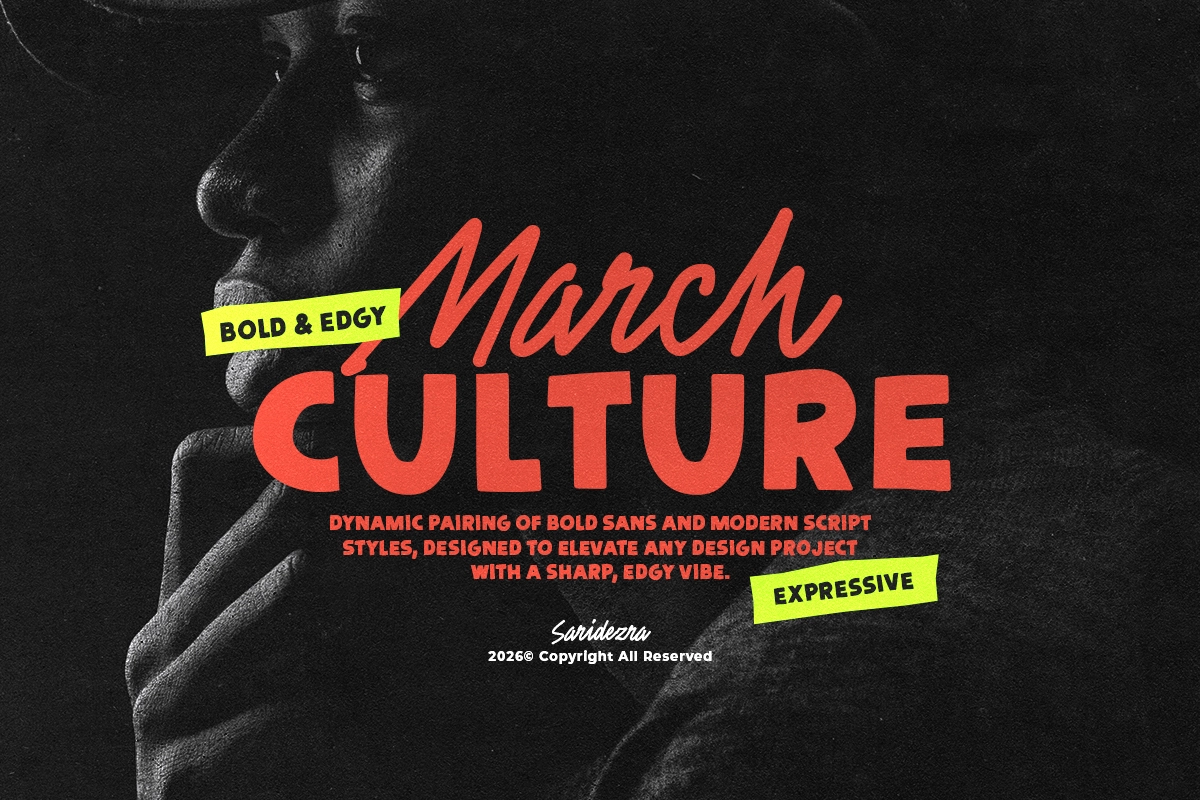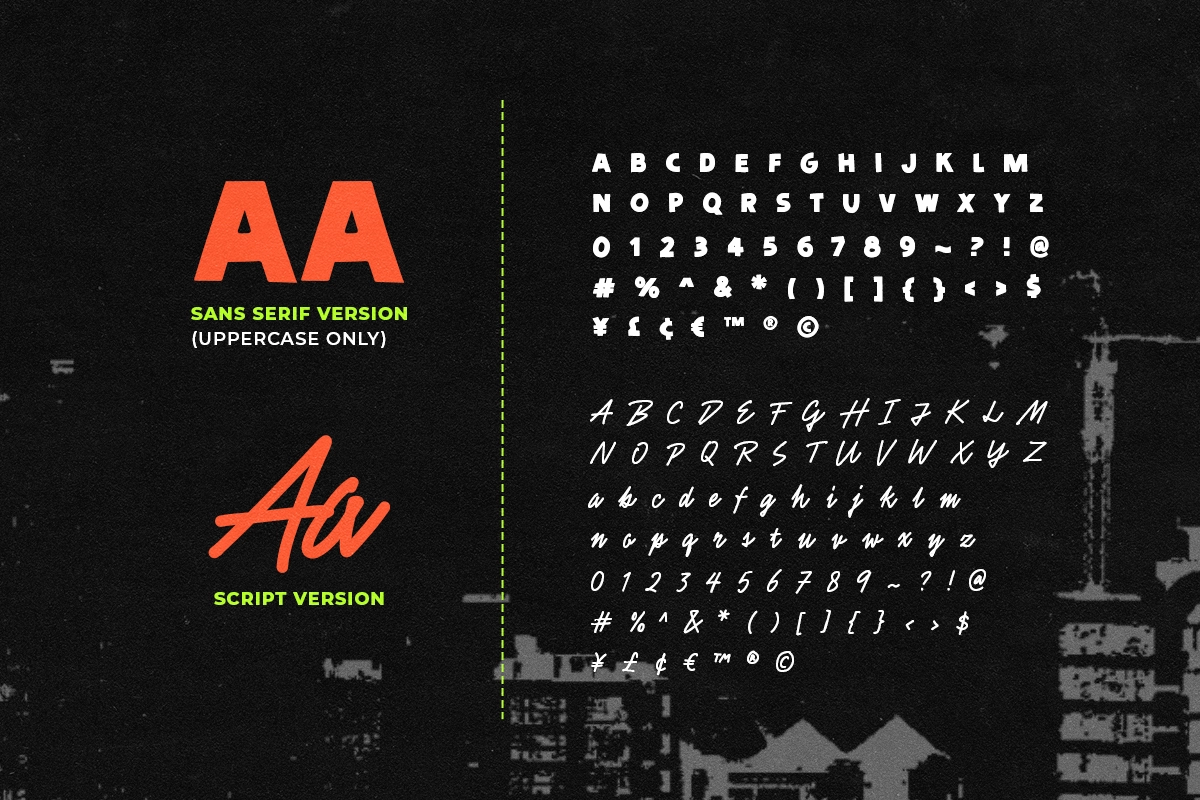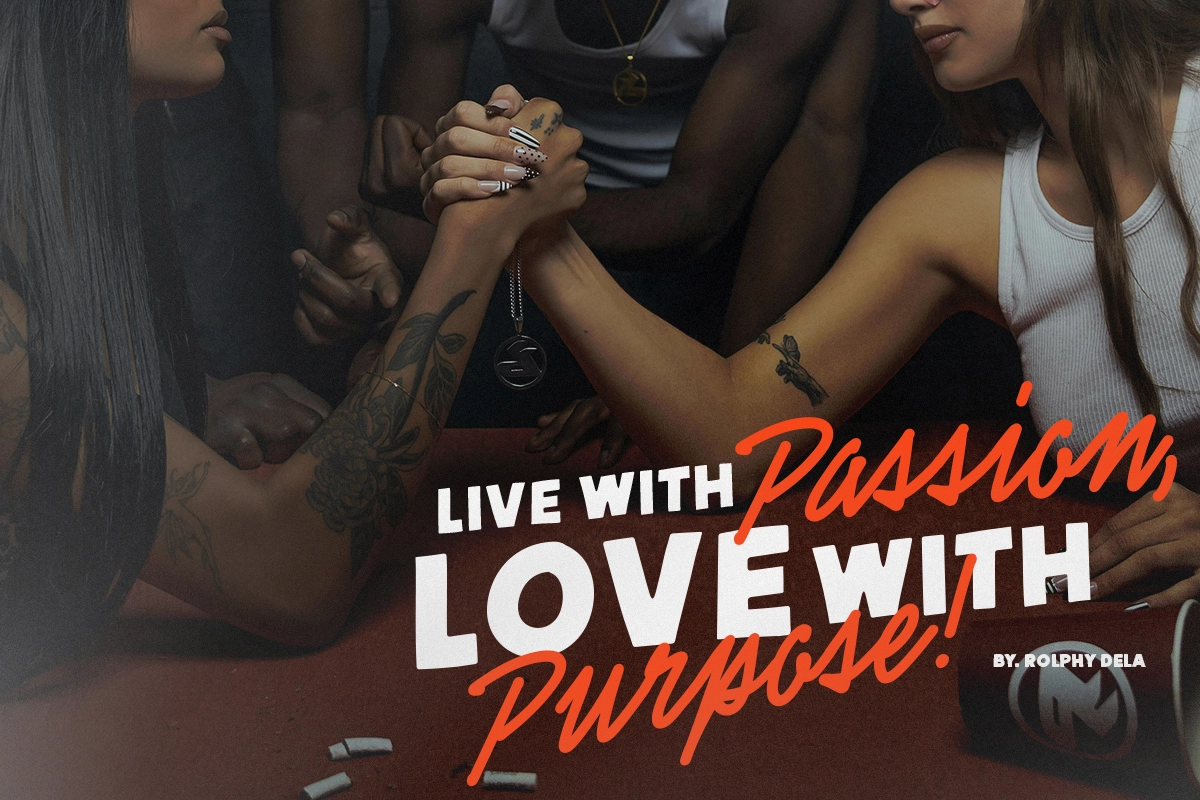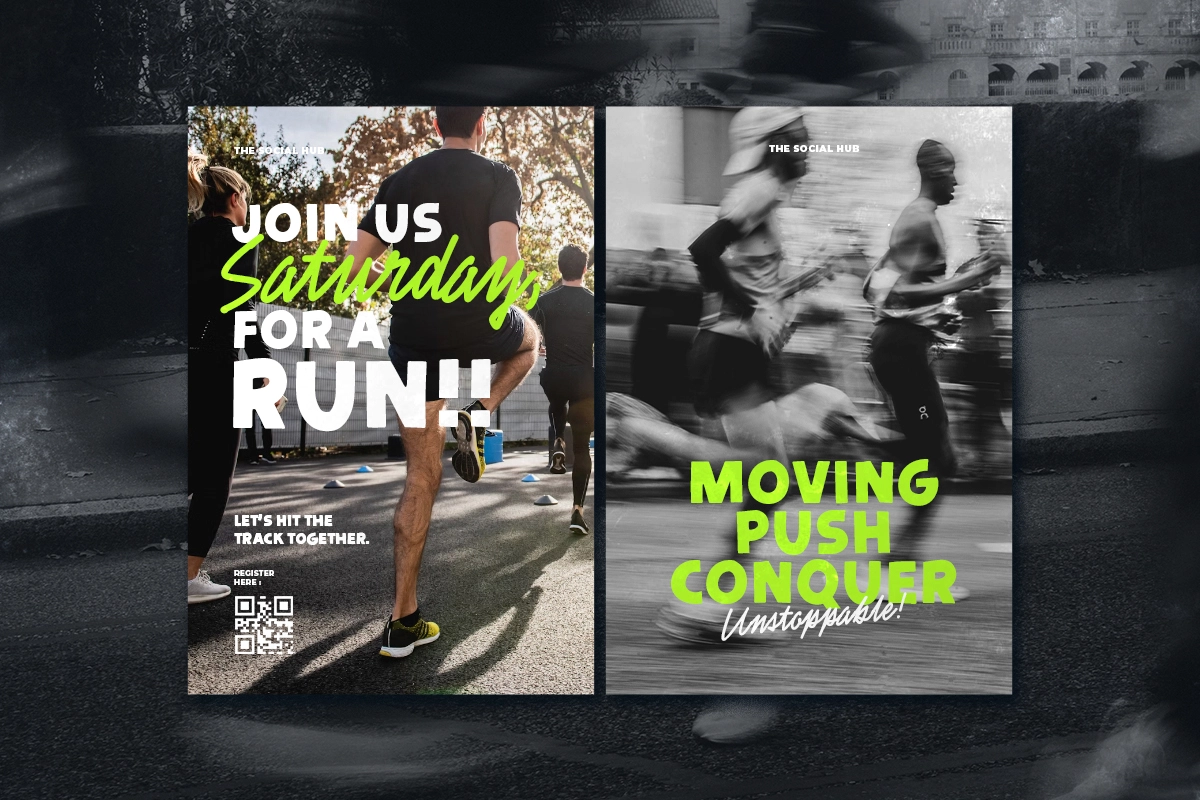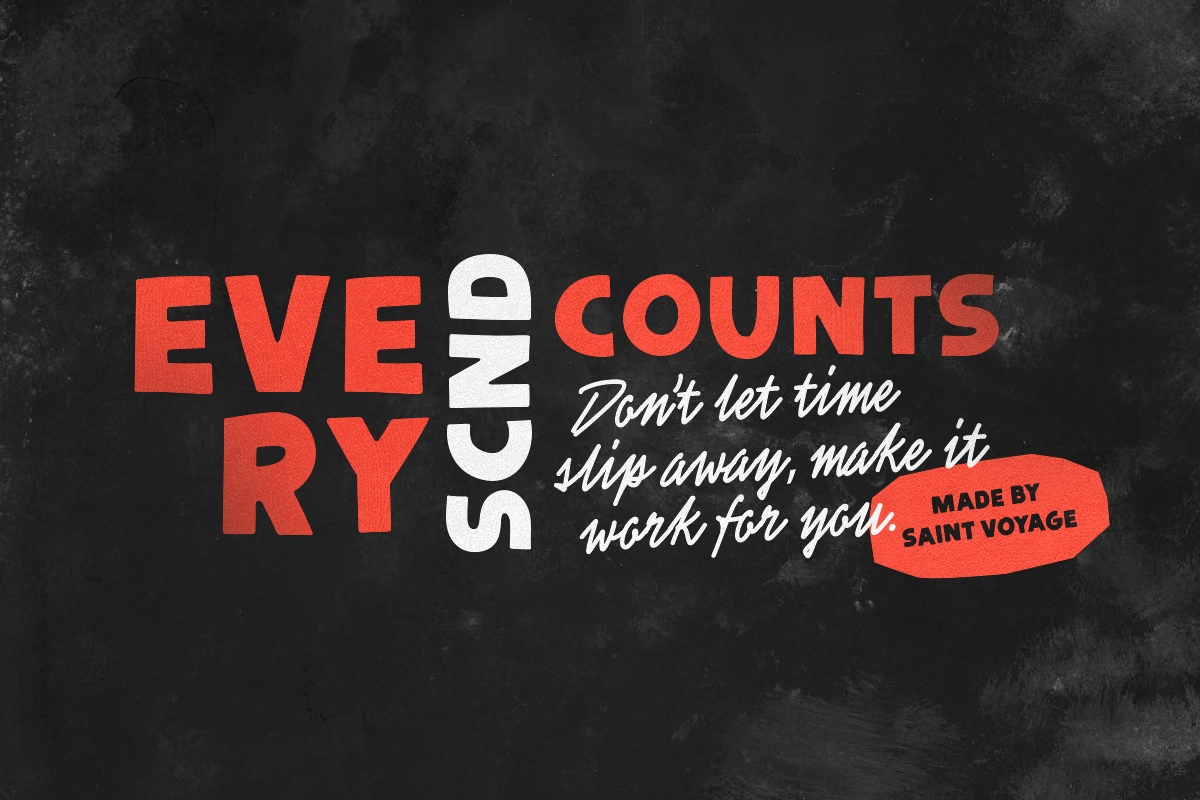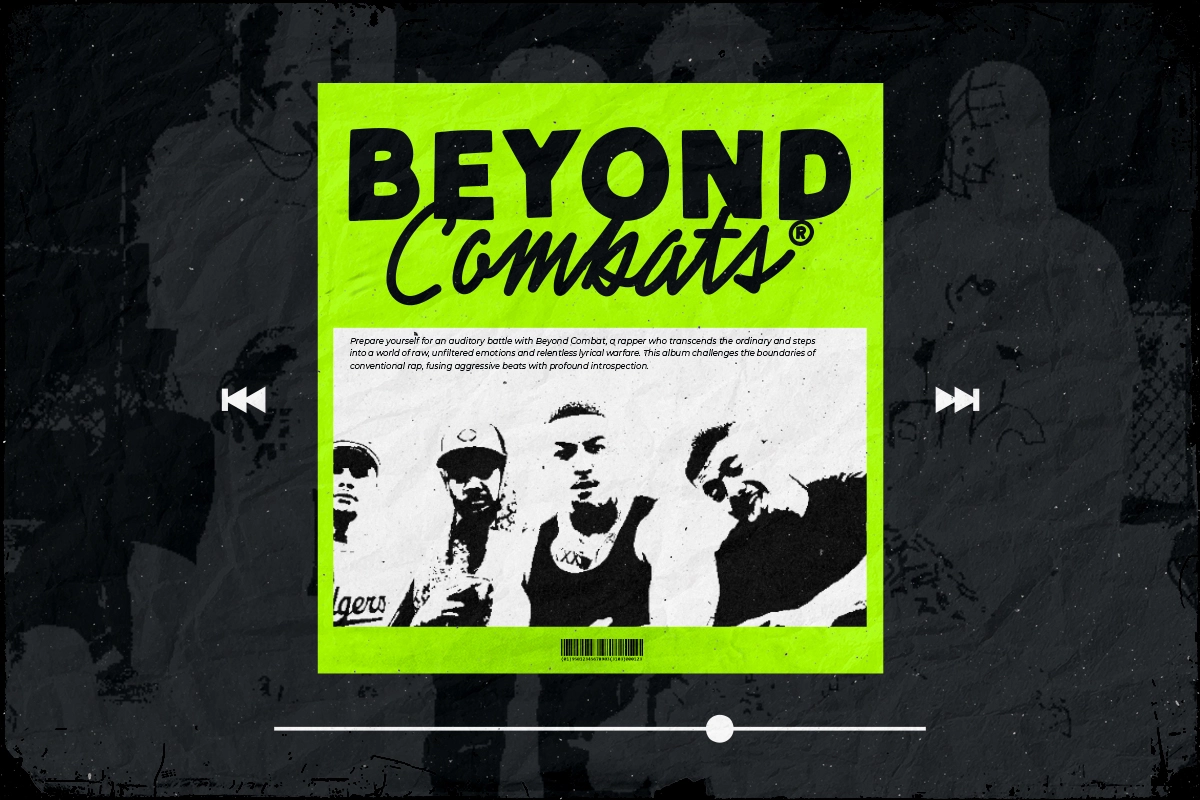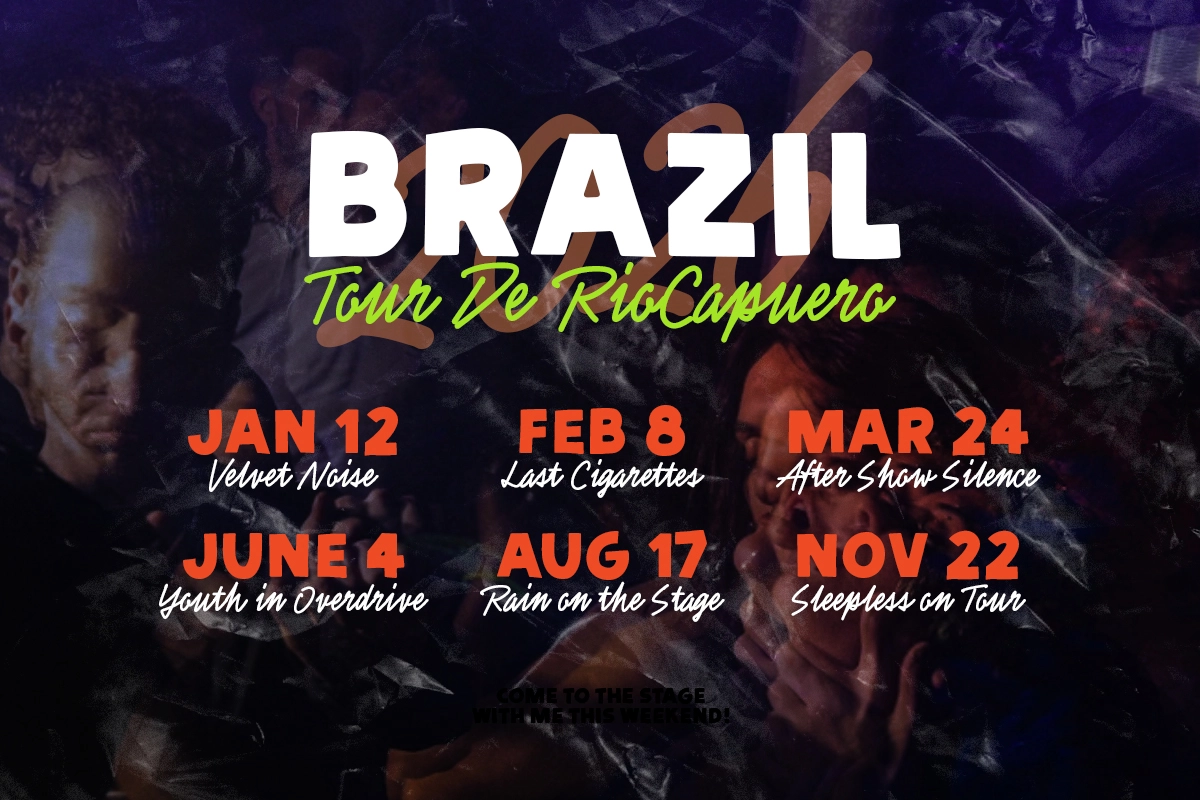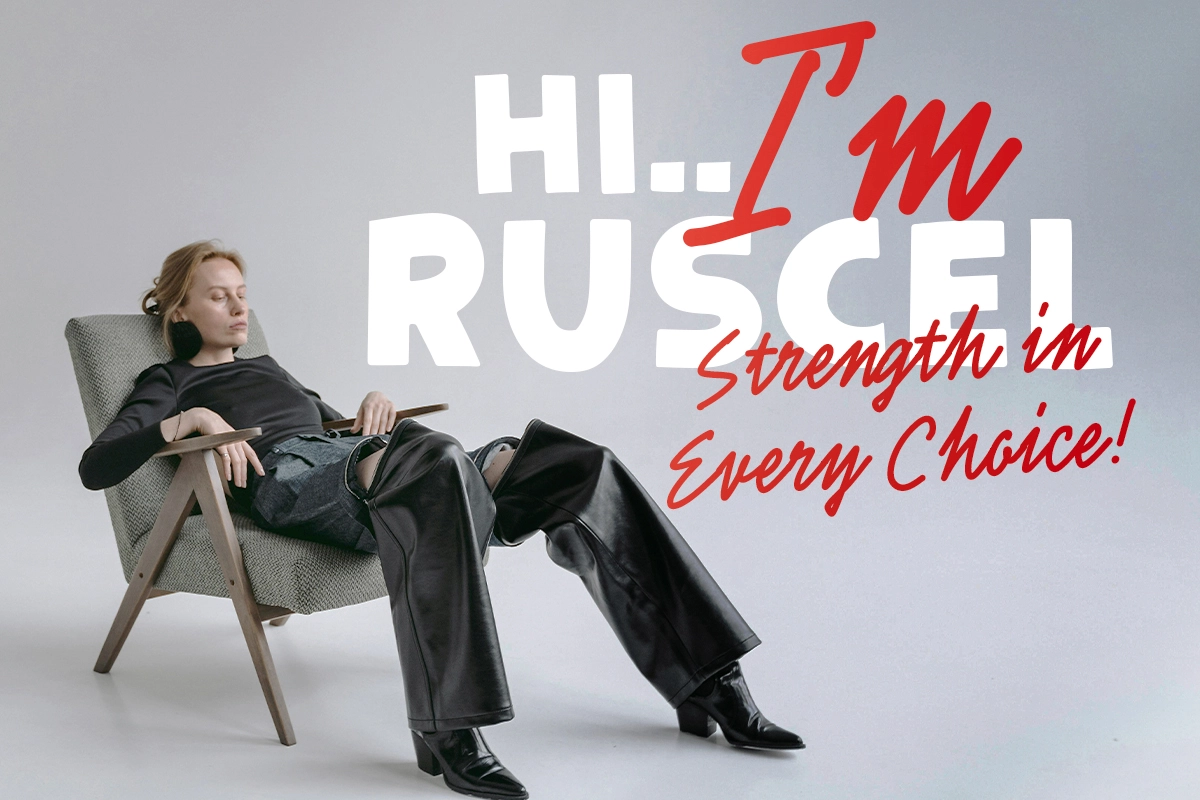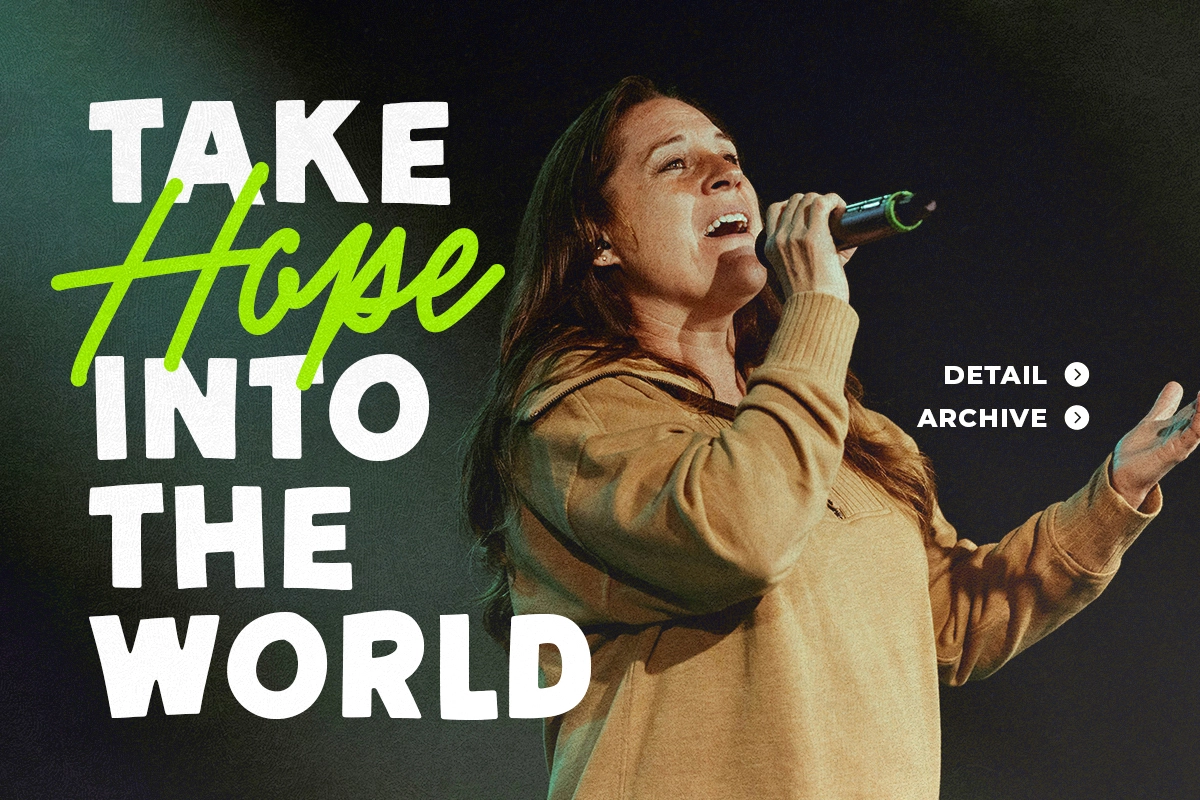
March Culture - Edgy Font Duo
March Culture - Edgy Font Duo is an edgy font duo that combines bold sans serif with modern handwritten script, designed to create high-impact typography for posters, branding, and expressive visual projects. With its strong contrast between clean uppercase forms and dynamic script strokes, this typeface delivers a confident, urban-inspired aesthetic.
Perfect for music posters, streetwear branding, social media graphics, and bold editorial layouts, March Culture helps your designs stand out with attitude and energy. The pairing of structured sans and fluid script creates a versatile toolkit for building eye-catching compositions with depth and personality.
- Bold sans serif
- Handwritten script style
- Font duo pairing (sans + script)
- Numbers and punctuation
- Strong contrast for dynamic layouts